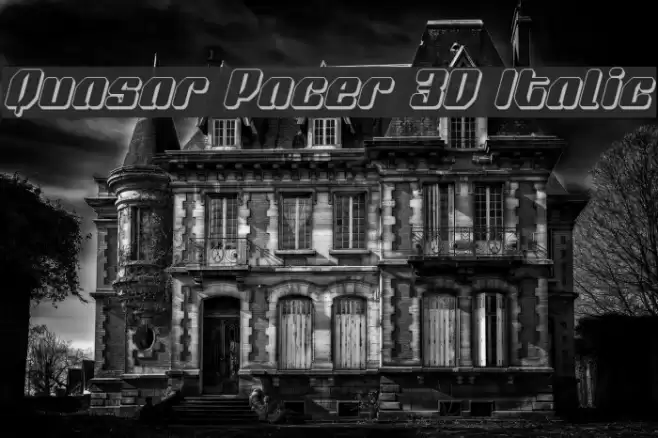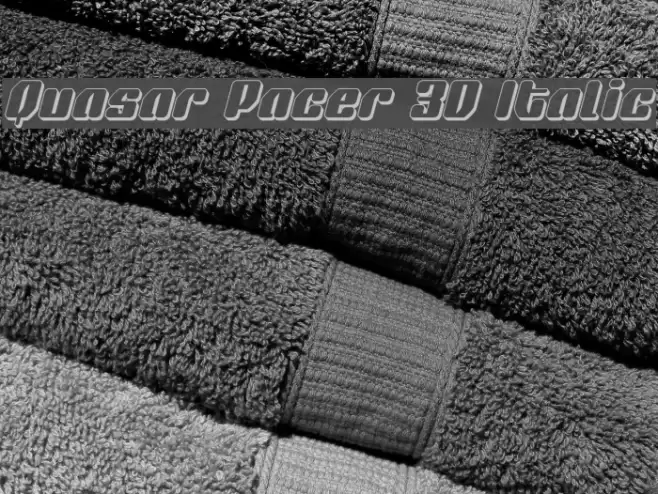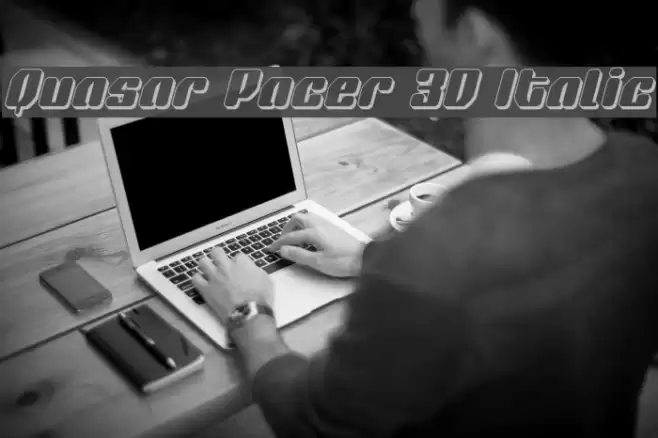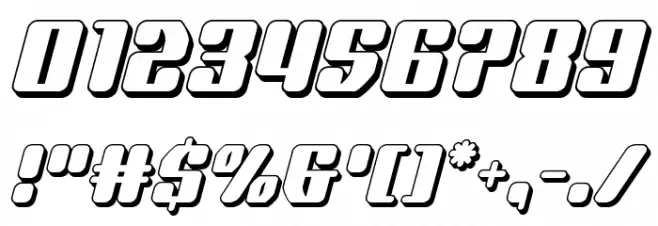
Quasar Pacer 3D Italic Font
Quasar Pacer 3D Italic Description
This font features a bold, three-dimensional style with a distinct italic slant, giving it a dynamic and futuristic appearance. The characters are outlined with a shadow effect that enhances the 3D illusion, making them stand out prominently. The overall design is geometric, with sharp angles and clean lines, creating a sense of movement and energy. The uppercase and lowercase letters maintain a consistent style, while the numerals and special characters complement the alphabet with similar boldness and structure. This font is ideal for projects that require a modern and eye-catching aesthetic.
A bold, 3D italic font with a futuristic and dynamic style from Uncategorized fonts.
- Proposed Projects: Ideal for sci-fi themed posters, video game graphics, and modern branding projects.